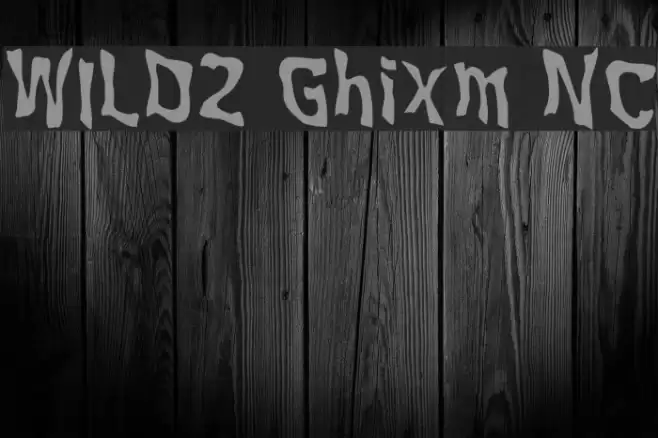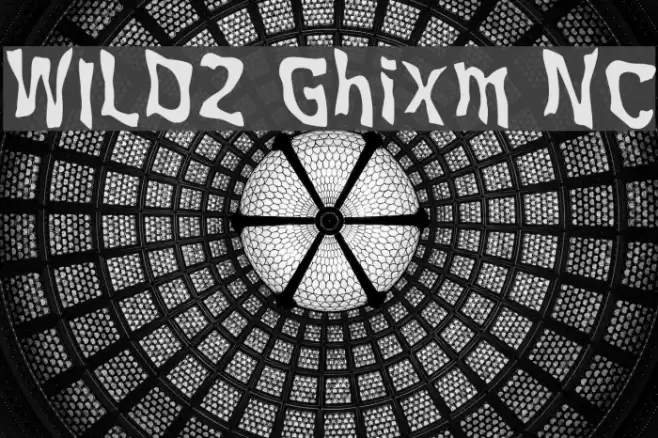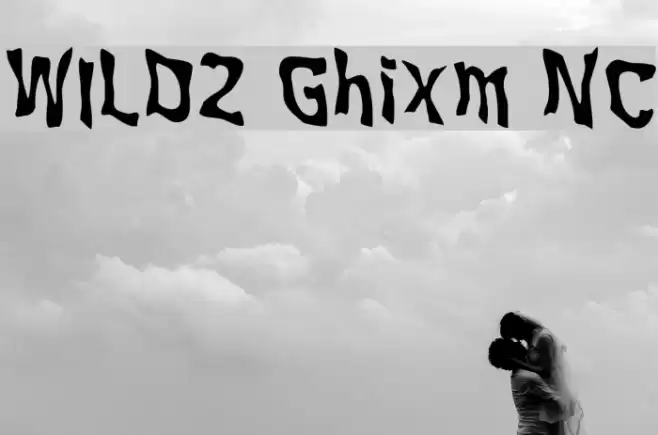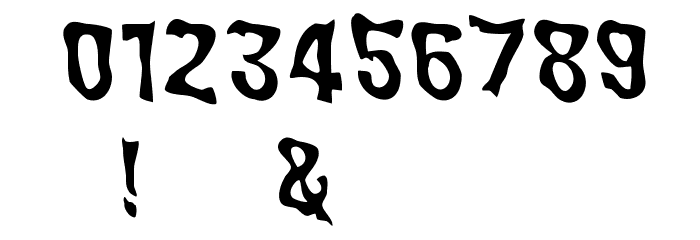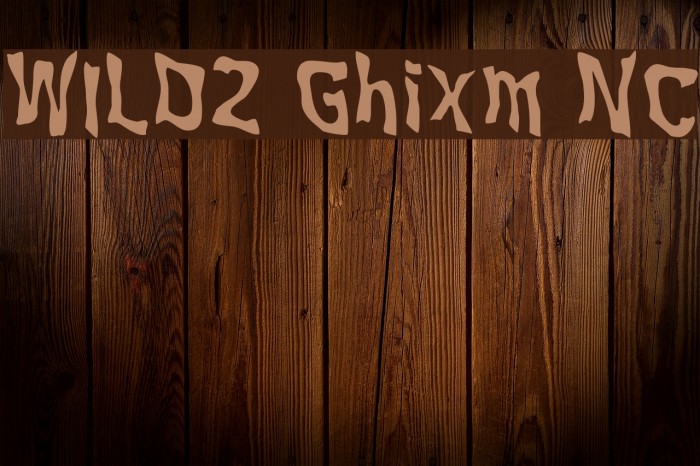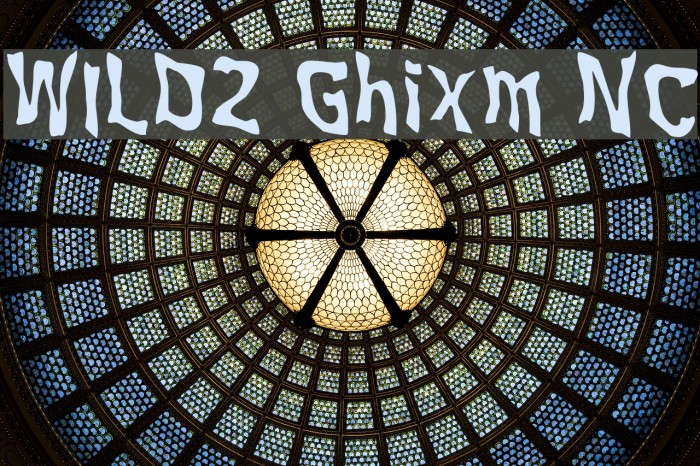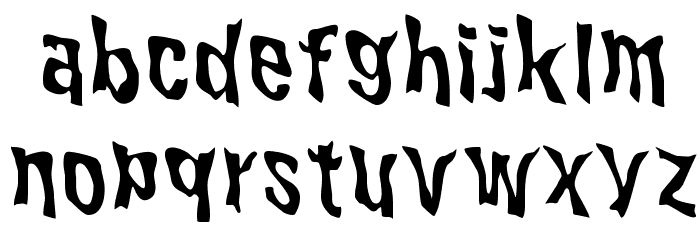
WILD2 Ghixm NC Font
WILD2 Ghixm NC Description
This font features a bold and dynamic style with irregular, jagged edges that give it a wild and untamed appearance. The characters are highly stylized, with varying stroke thicknesses that create a sense of movement and energy. The uppercase and lowercase letters maintain a consistent design theme, while the numerals and special characters complement the overall aesthetic. This font's unique and eye-catching design makes it suitable for creative and unconventional projects.
A bold, dynamic font with irregular, jagged edges and a wild appearance from Uncategorized fonts.
- Proposed Projects: Ideal for posters, album covers, event flyers, and any project requiring a bold, unconventional look.